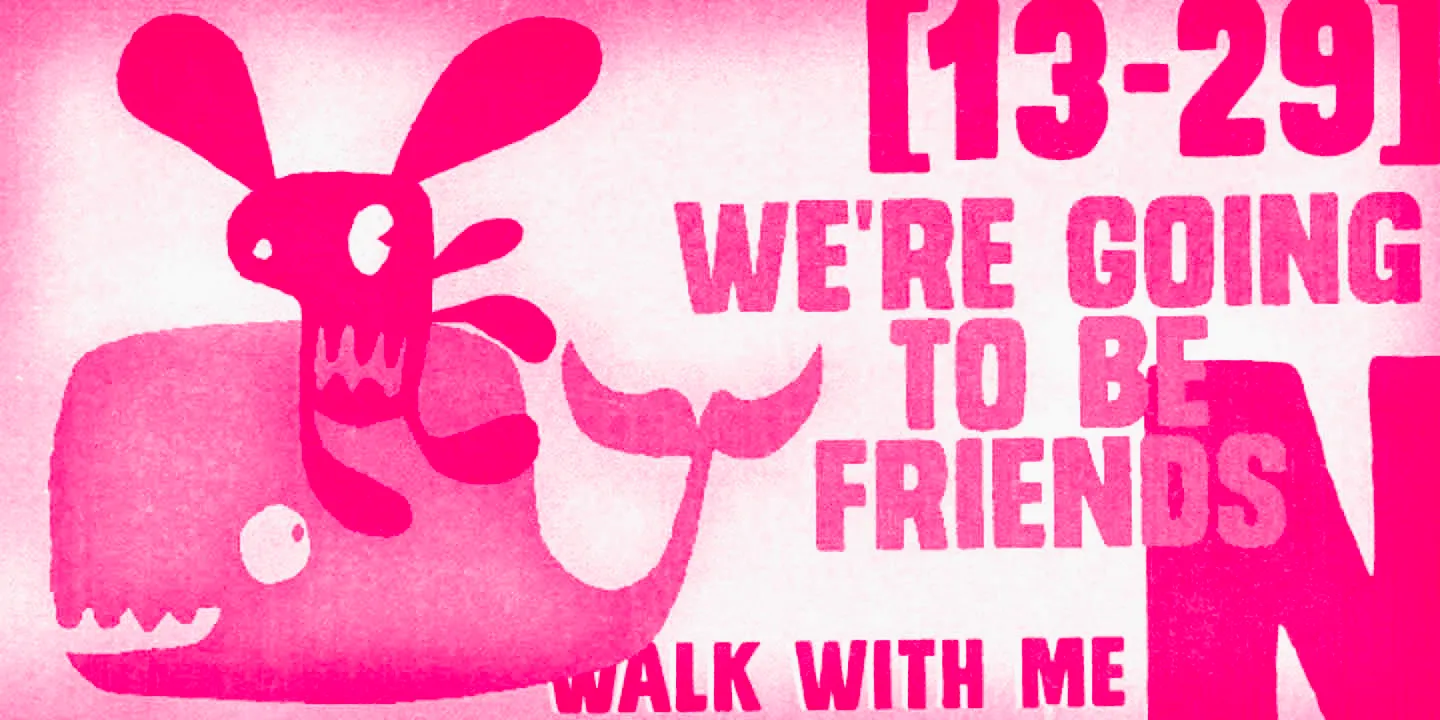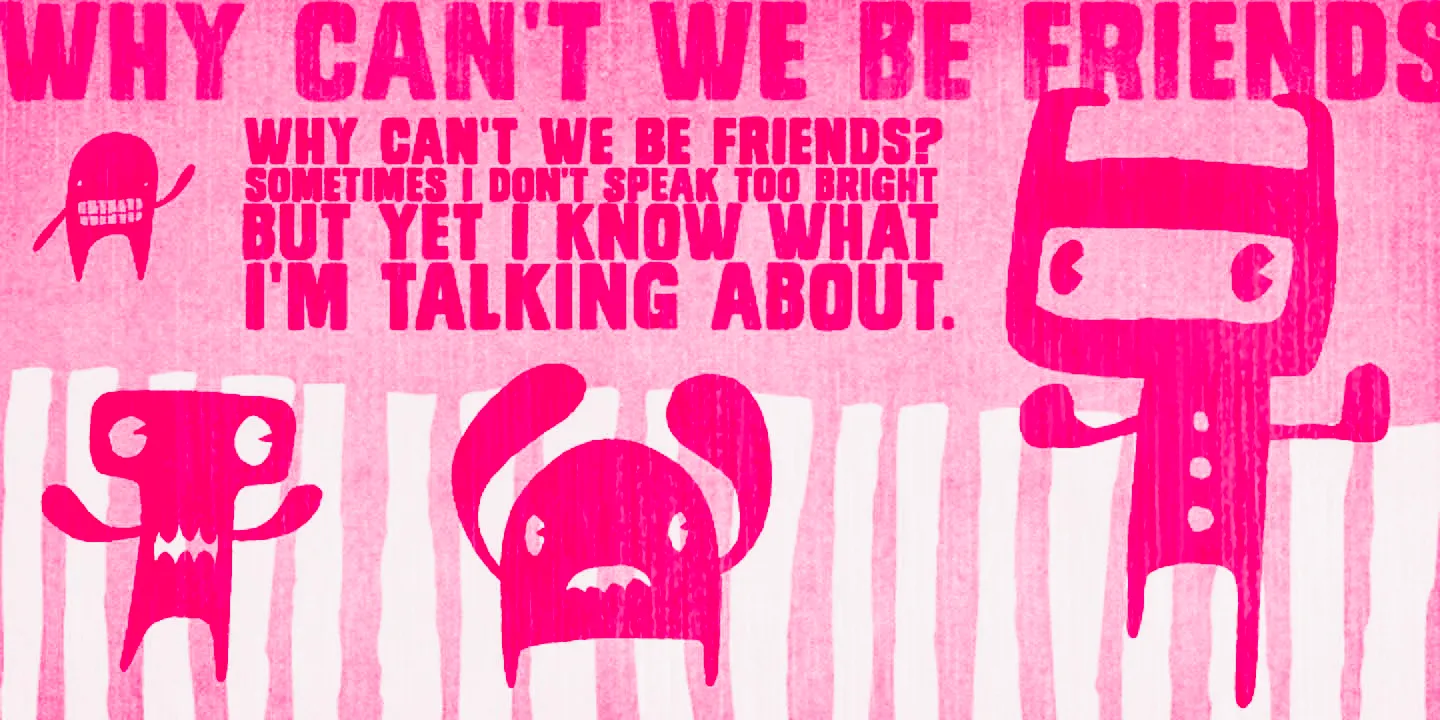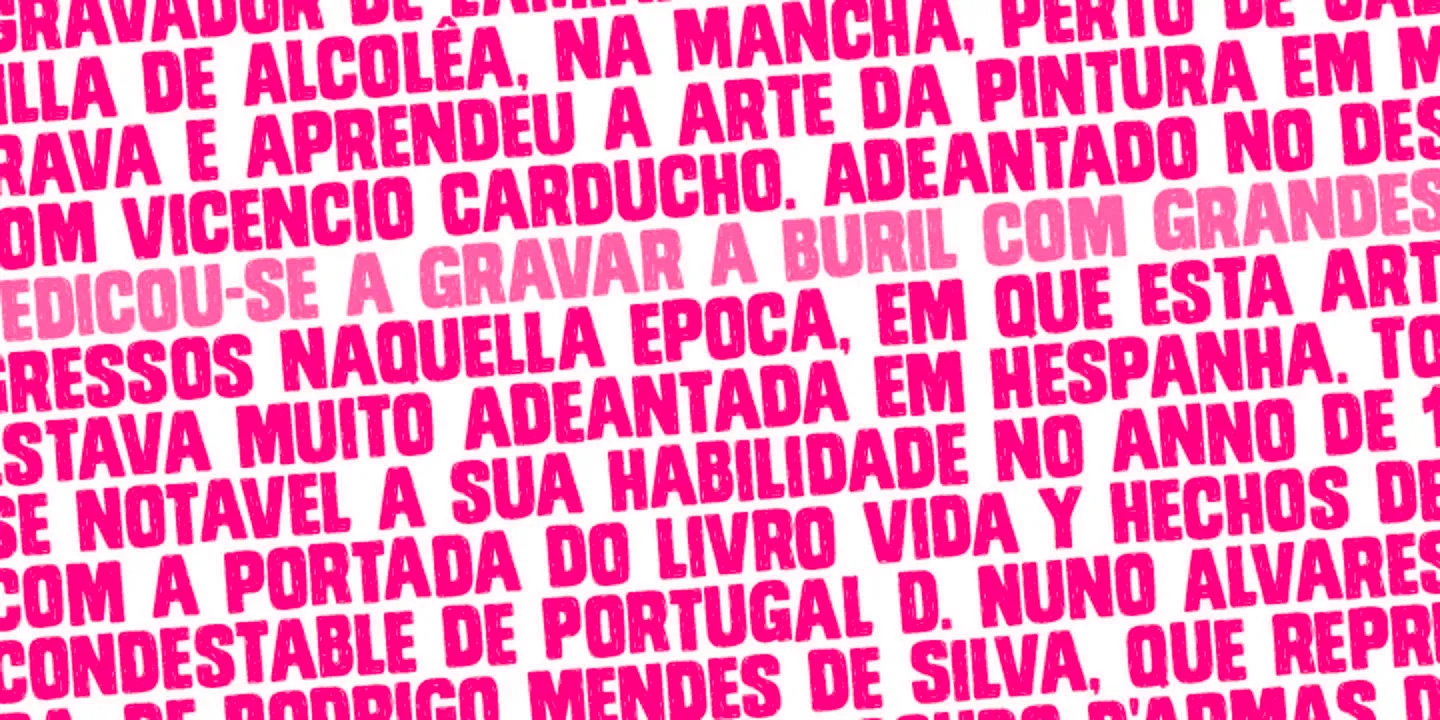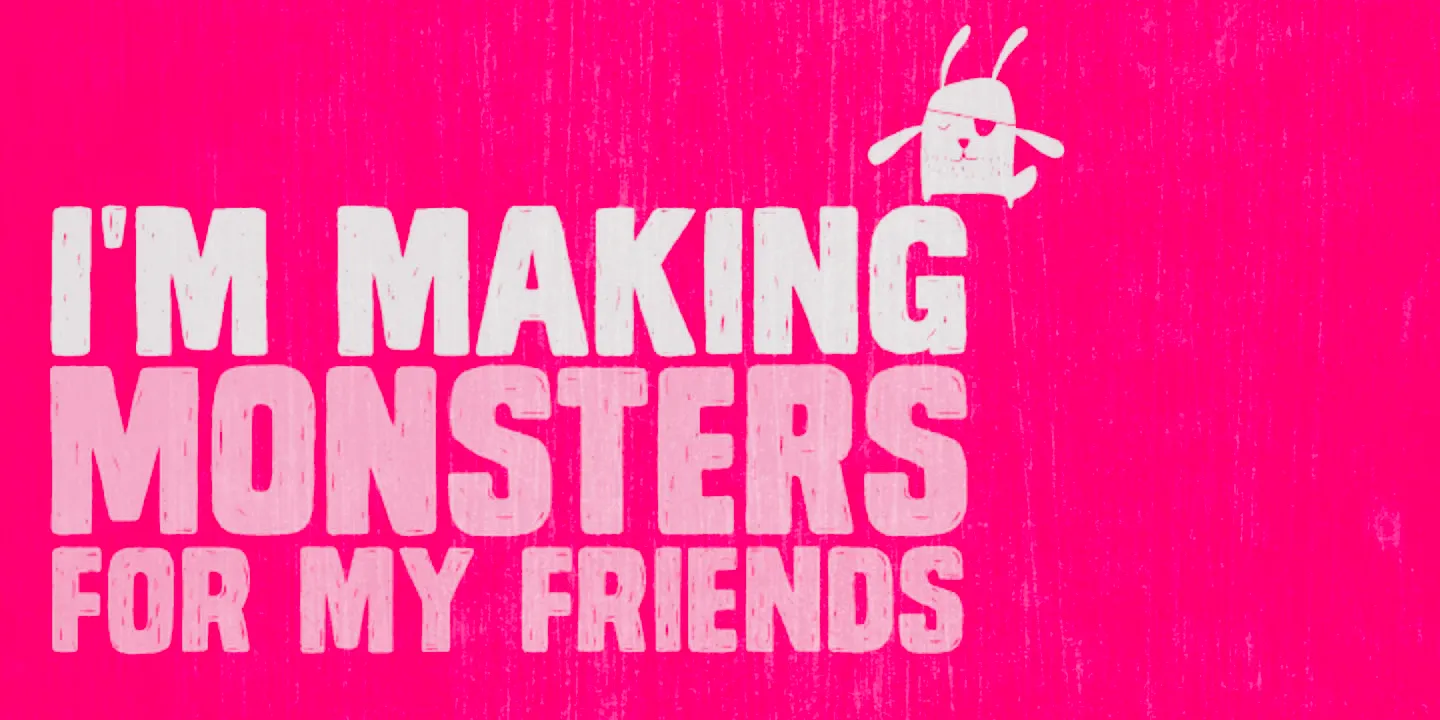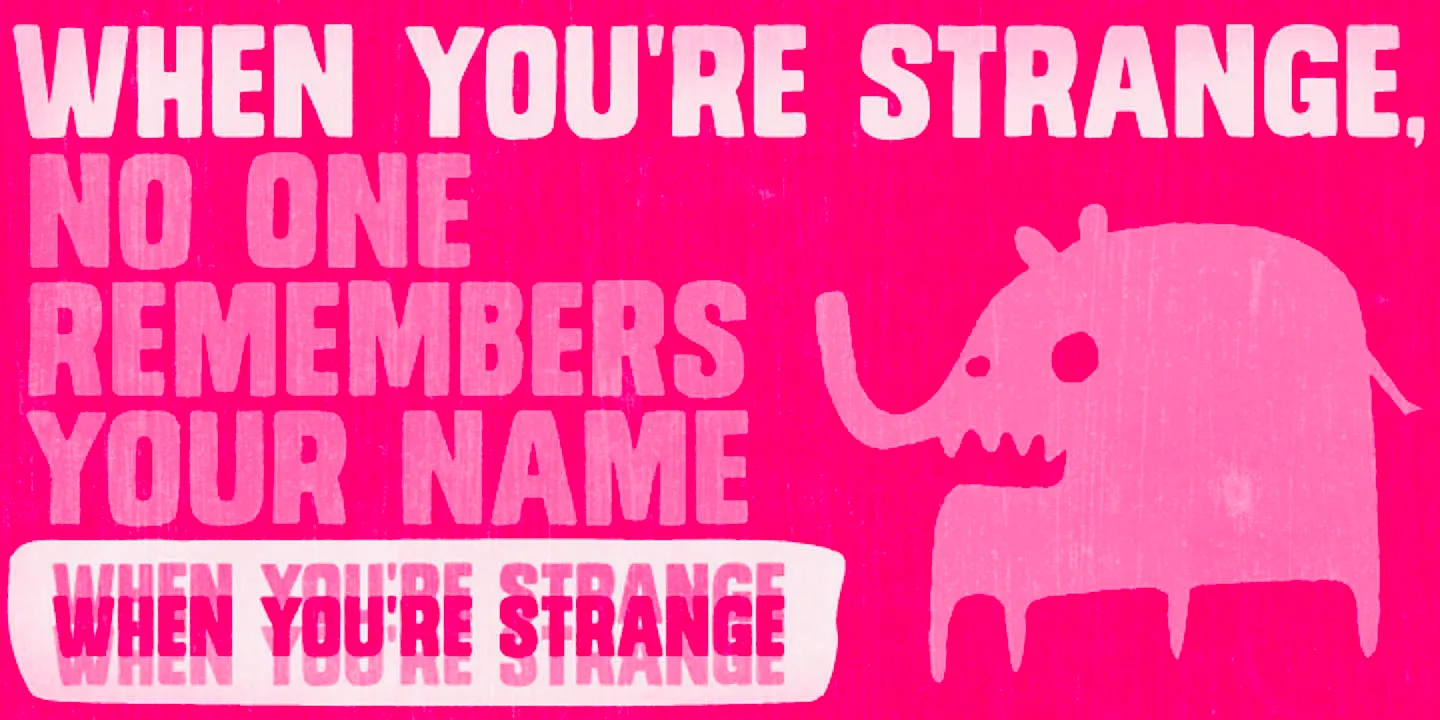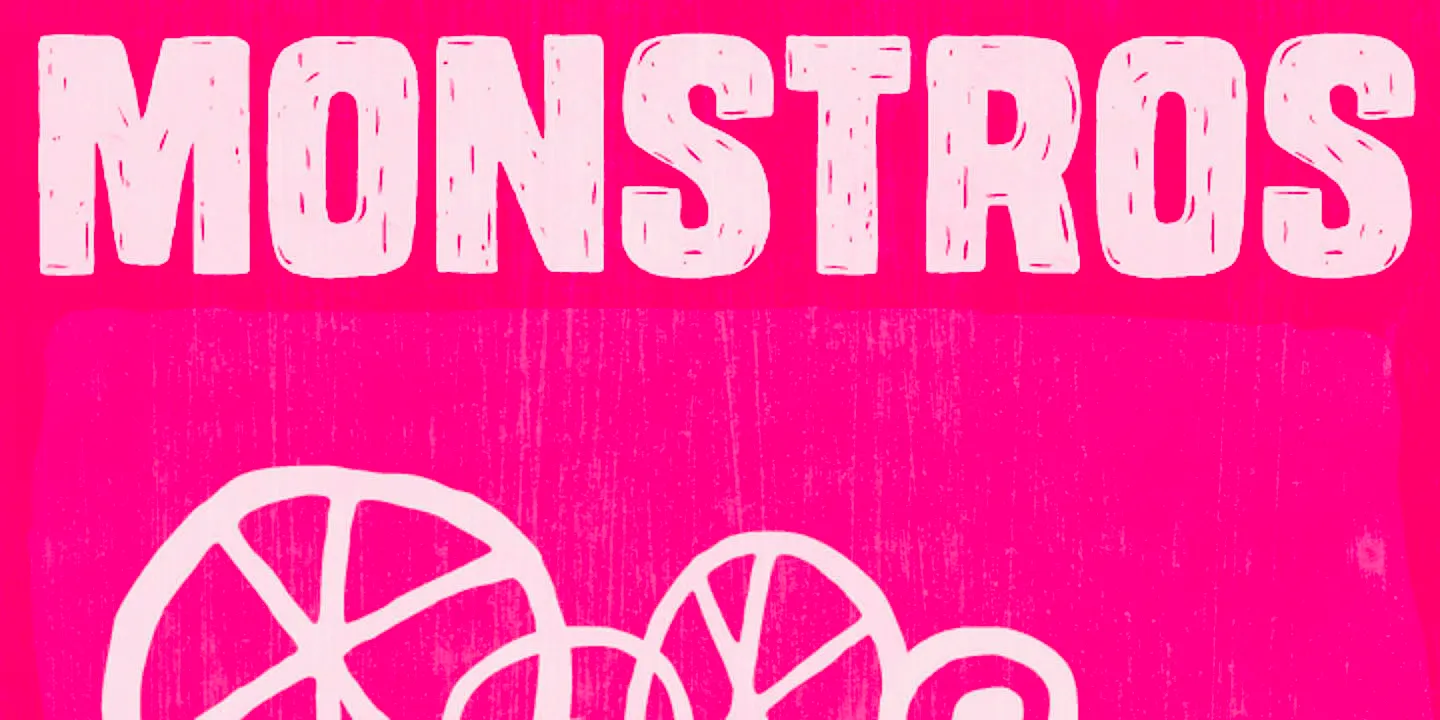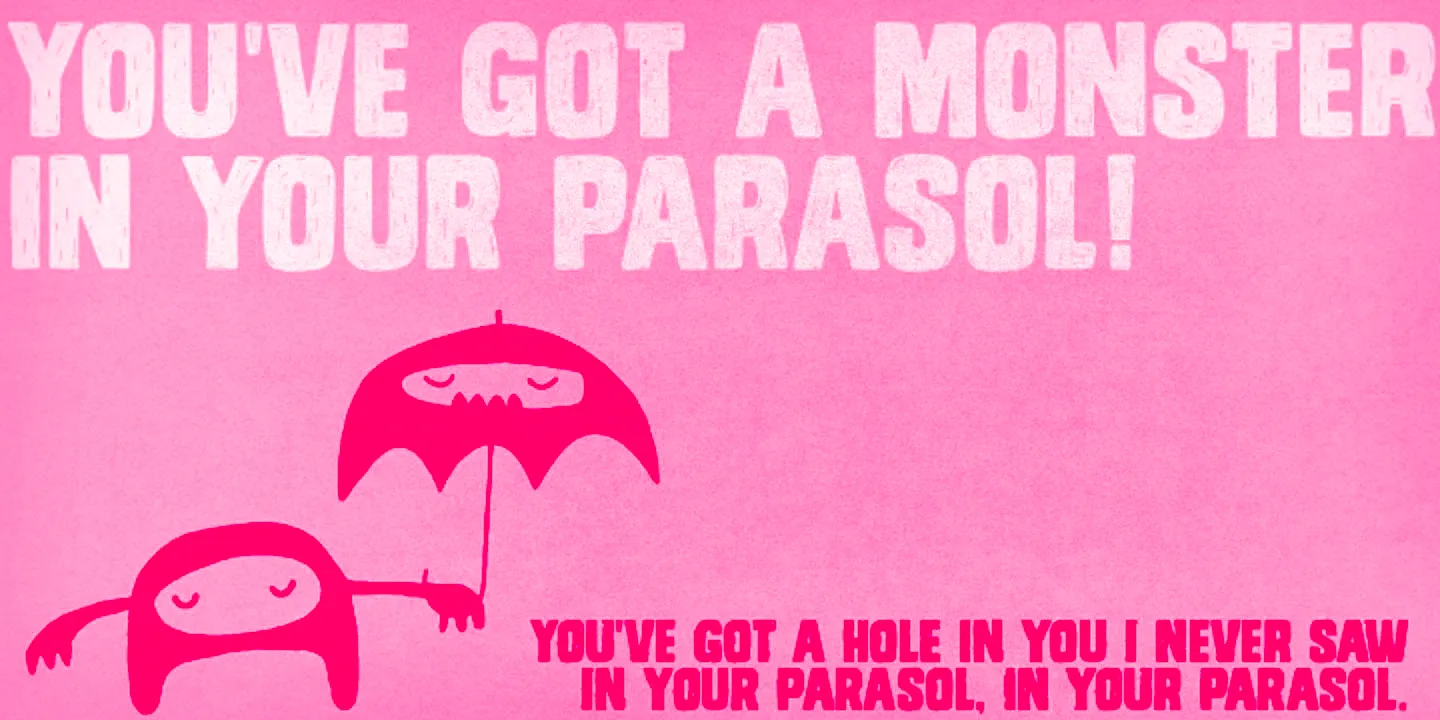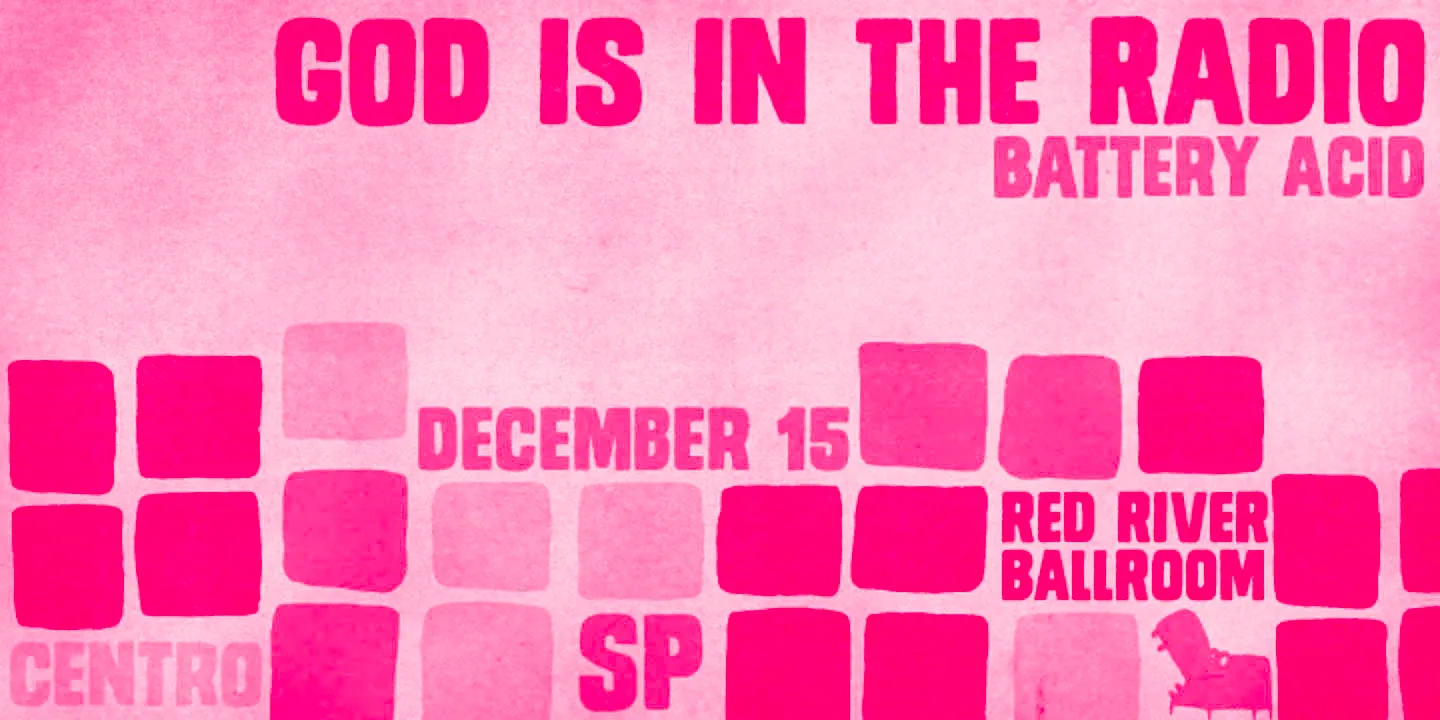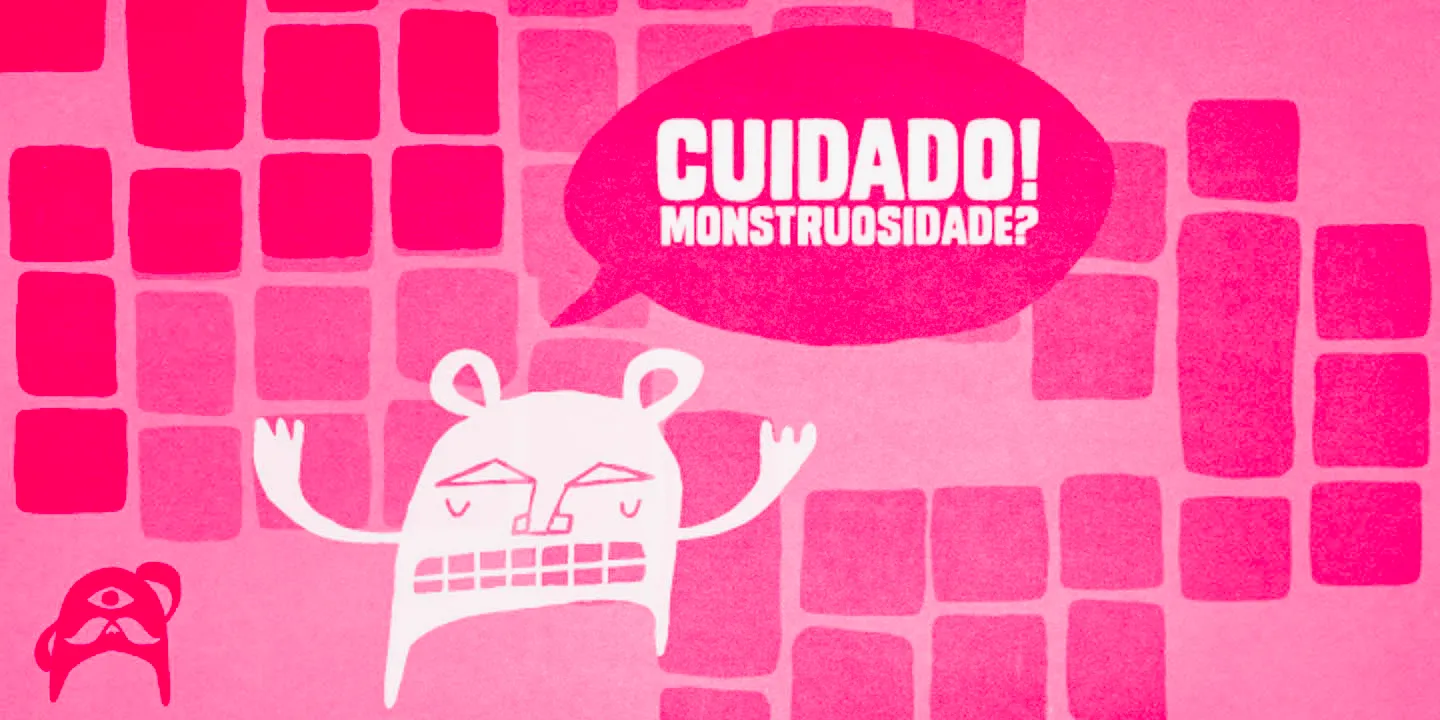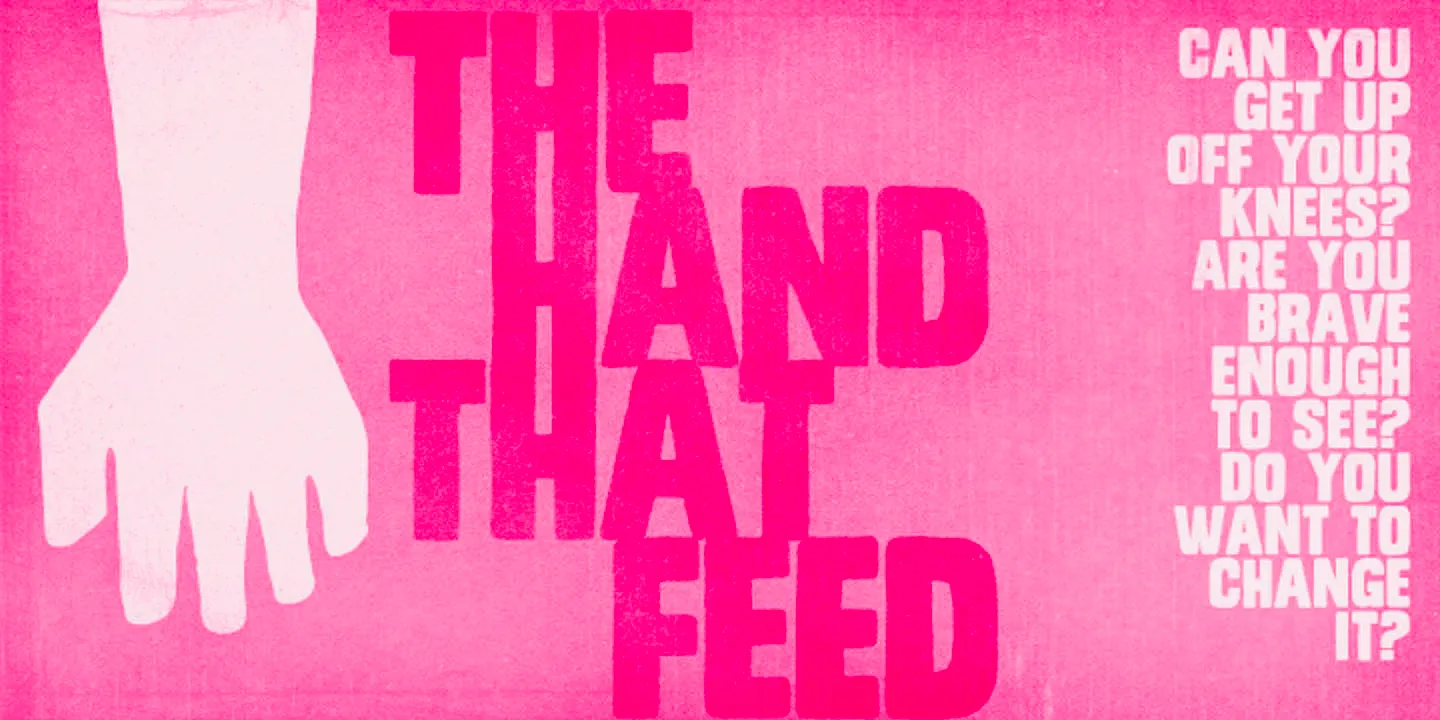
Monstro Font Family
• Monstro Monstrinhos
• Monstro Regular
• Monstro Solid
Monstro
Monstro is a bold, all-caps, sans serif font family with a raw, hand-painted feel. It includes a sketchy Regular and a fearless Solid style — each with a rough edge for added visual impact. The matching dingbats feature a bunch of irresistible monsters and other cool graphic elements. It’s designed for loud, fearless typography, and the heavy forms are full of energy, making it ideal for attention-grabbing uses such as posters, signage, and merchandising. Perfect for a monster-full of purposes.